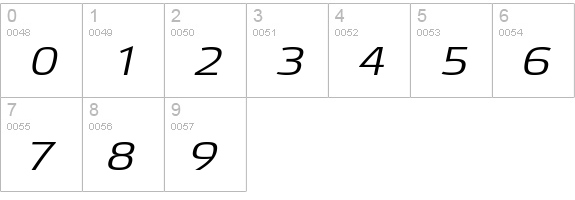
Etelka Wide Light Pro Italic Font Details
Etelka Wide Light Pro Italic is a refined, elegant, extended-width, italic variant in the Etelka typeface family \xE2\x80\x94 well suited to elegant body text, refined sub-headings, and luxury branding.
The Etelka Wide Light Pro Italic font is a sleek and modern typeface that exudes elegance and sophistication. Its delicate and graceful italic style adds a touch of flair to any design project, making it perfect for creative endeavors such as invitations, branding, and editorial layouts. The clean lines and subtle curves of this font create a sense of refinement and professionalism, making it a versatile choice for a wide range of applications. What makes the Etelka Wide Light Pro Italic font even more appealing is that it is available for free download at FontsMarket.com. This means that you can easily access this high-quality typeface without any cost, making it an accessible and convenient option for designers and creatives looking to enhance their projects with a touch of style and sophistication. Whether you're working on a personal project or a professional assignment, the Etelka Wide Light Pro Italic font is sure to elevate your design with its timeless appeal and modern aesthetic.